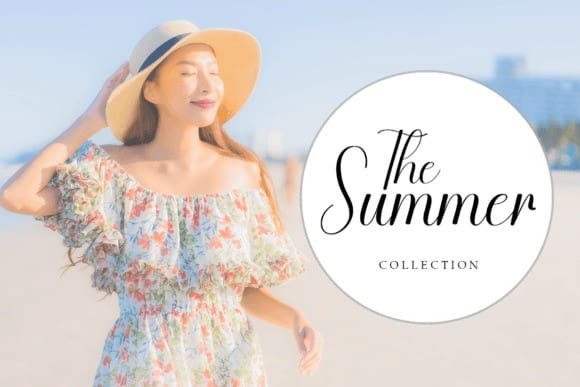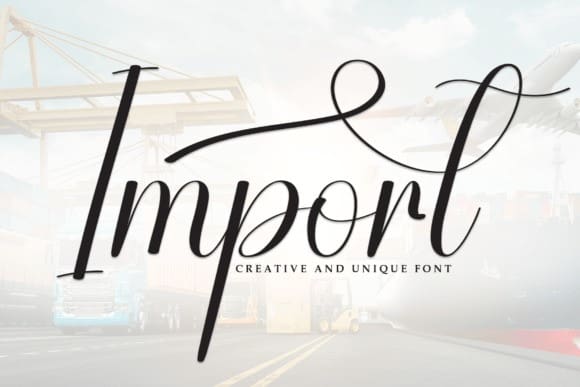
Import Script Font
Import Script Font is a sweet and friendly handwritten display font. Cute and fun, this font is ideal for writing wedding invitations, cards, or any other design that might need a fun touch!